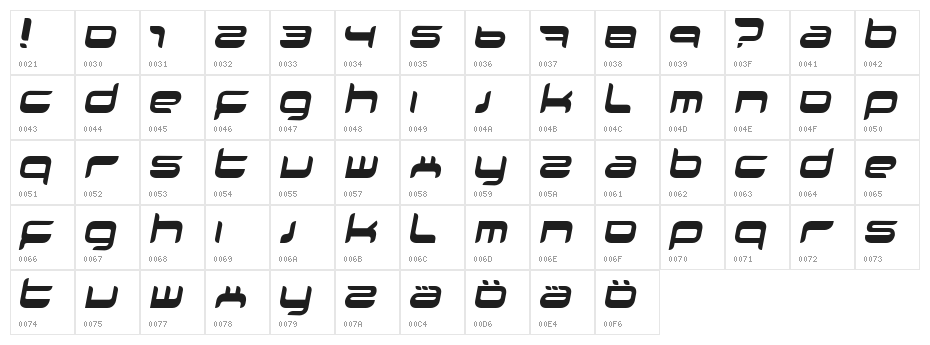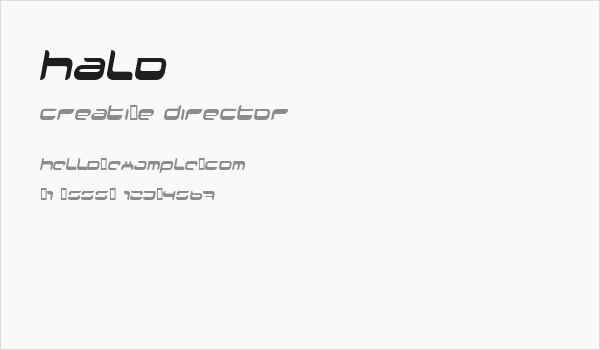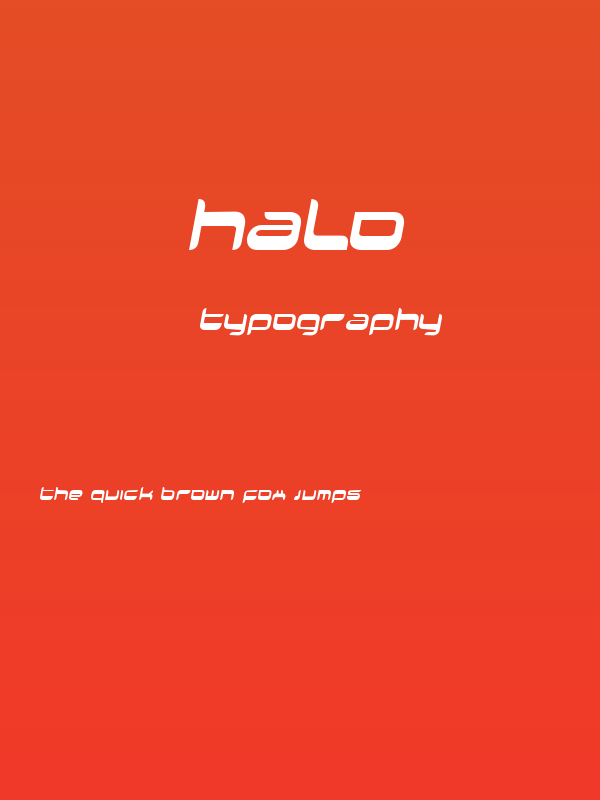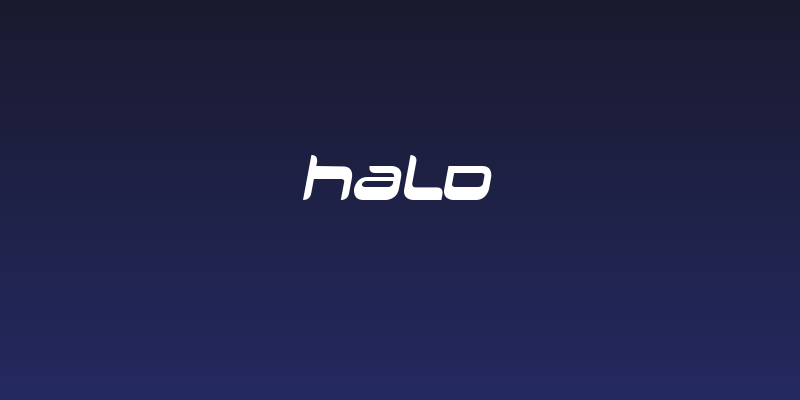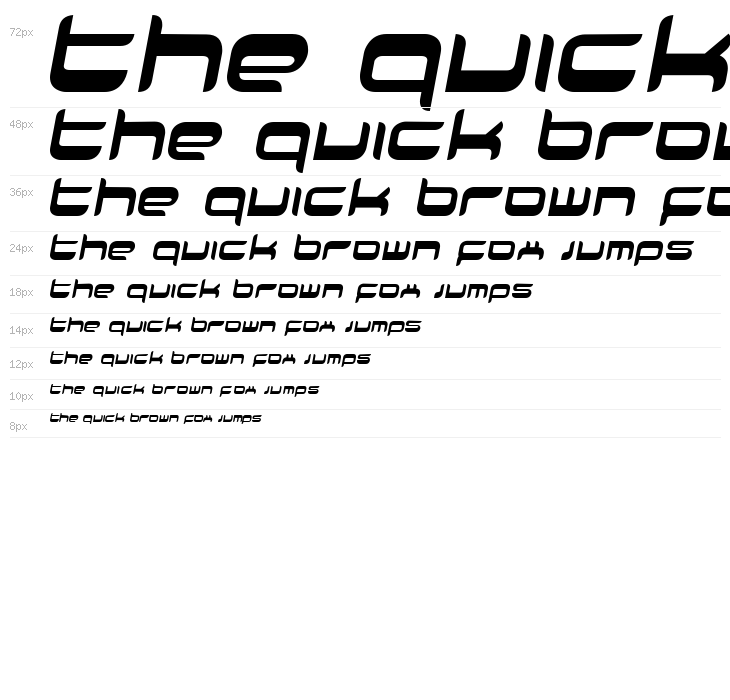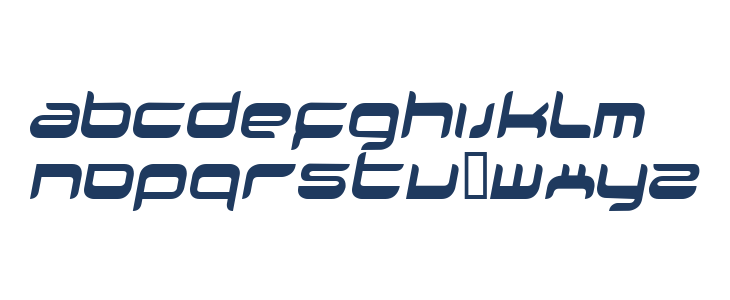
Halo Font
Halo Description
This font features a futuristic and sleek design, characterized by its rounded edges and dynamic curves. The letters are slightly italicized, giving a sense of motion and modernity. The uppercase and lowercase characters maintain a consistent style, with a unique flair in the design of certain letters like 'g' and 'k'. The numbers follow the same aesthetic, ensuring uniformity across all characters. Special characters are designed to complement the overall style, making this font suitable for projects that require a modern and tech-savvy appearance.